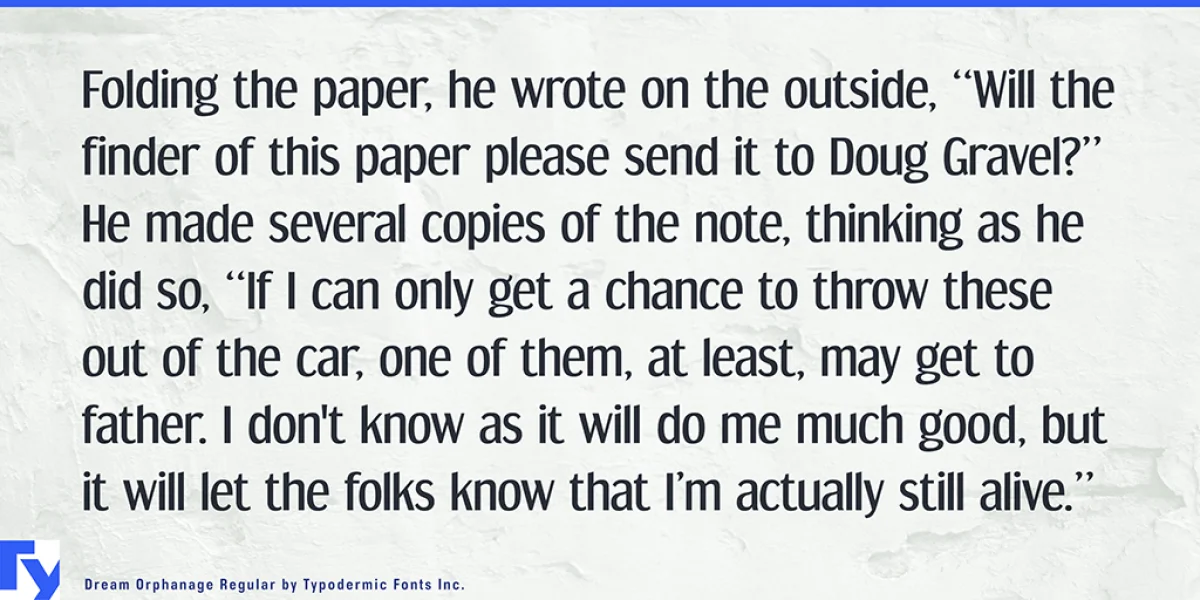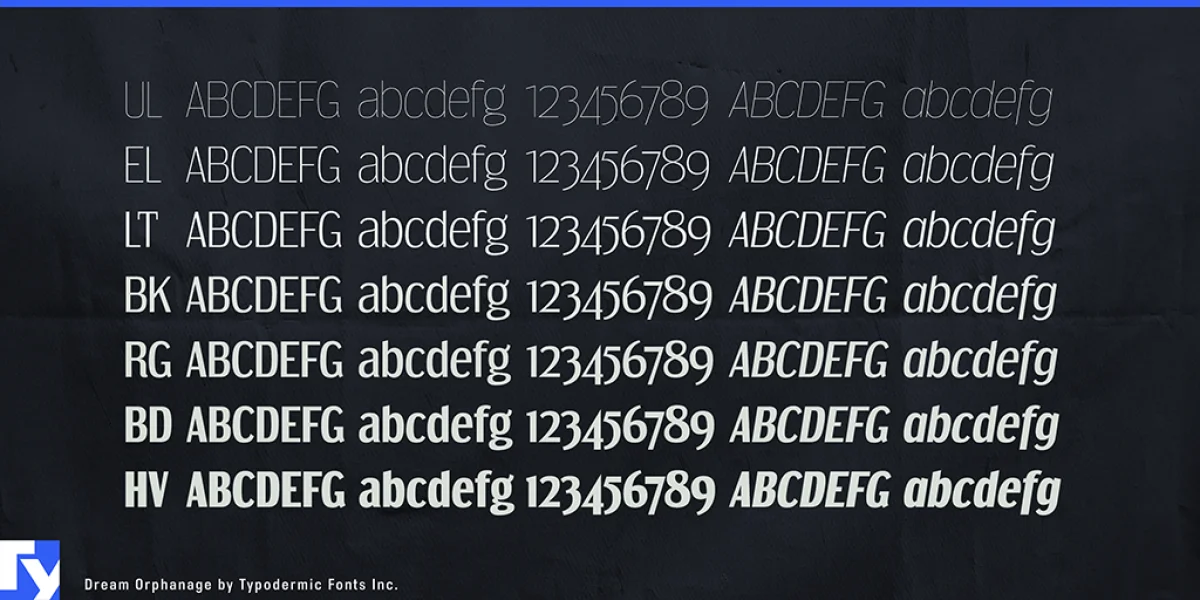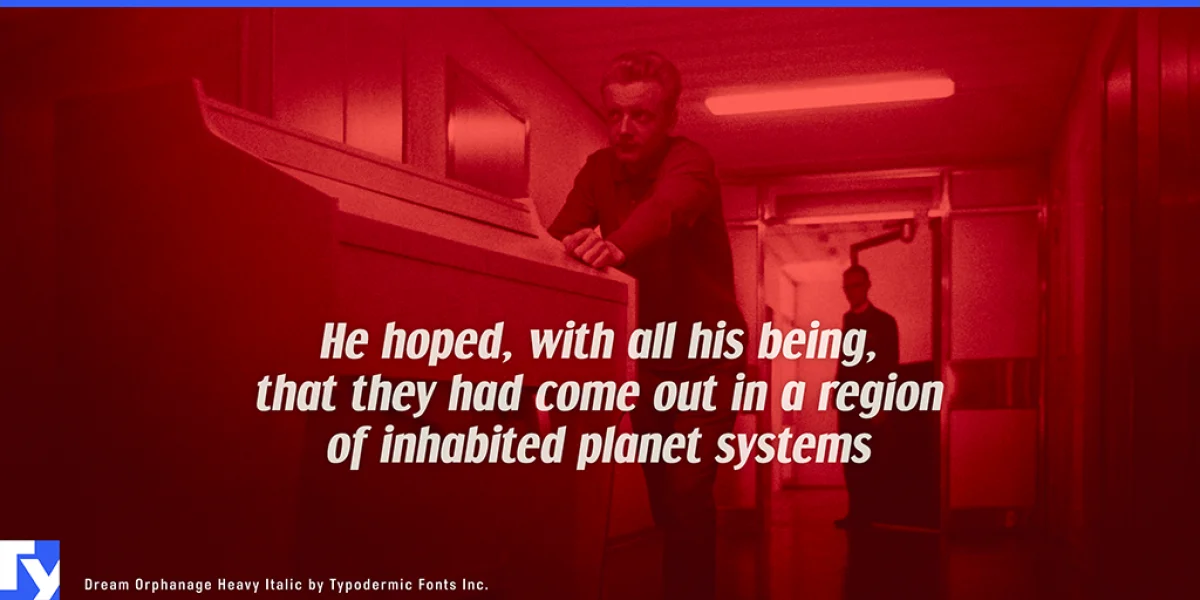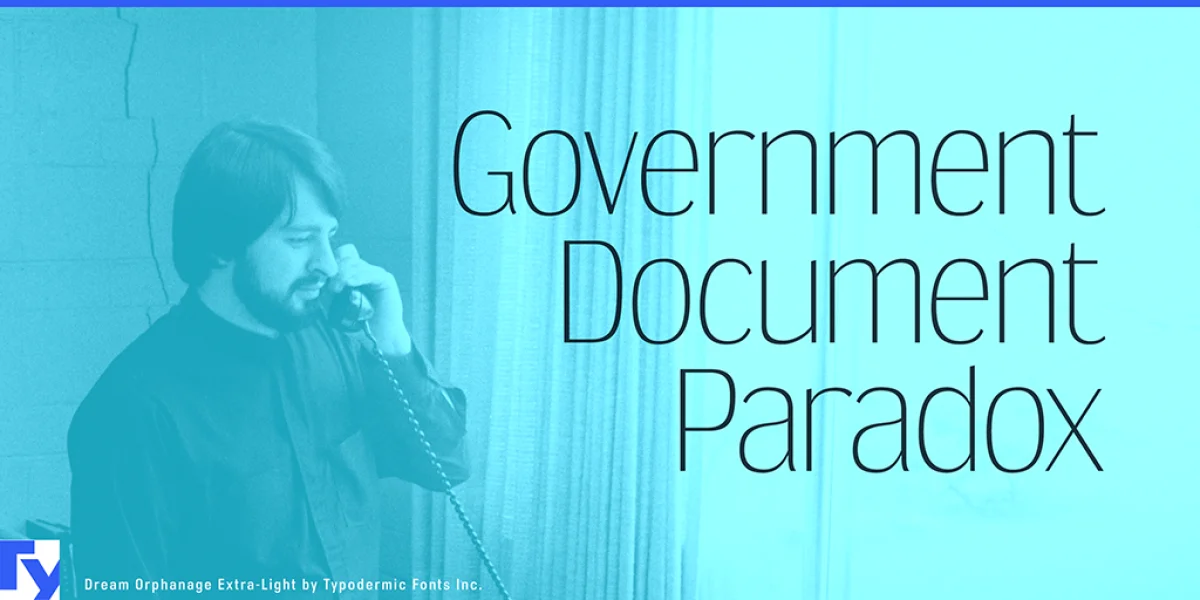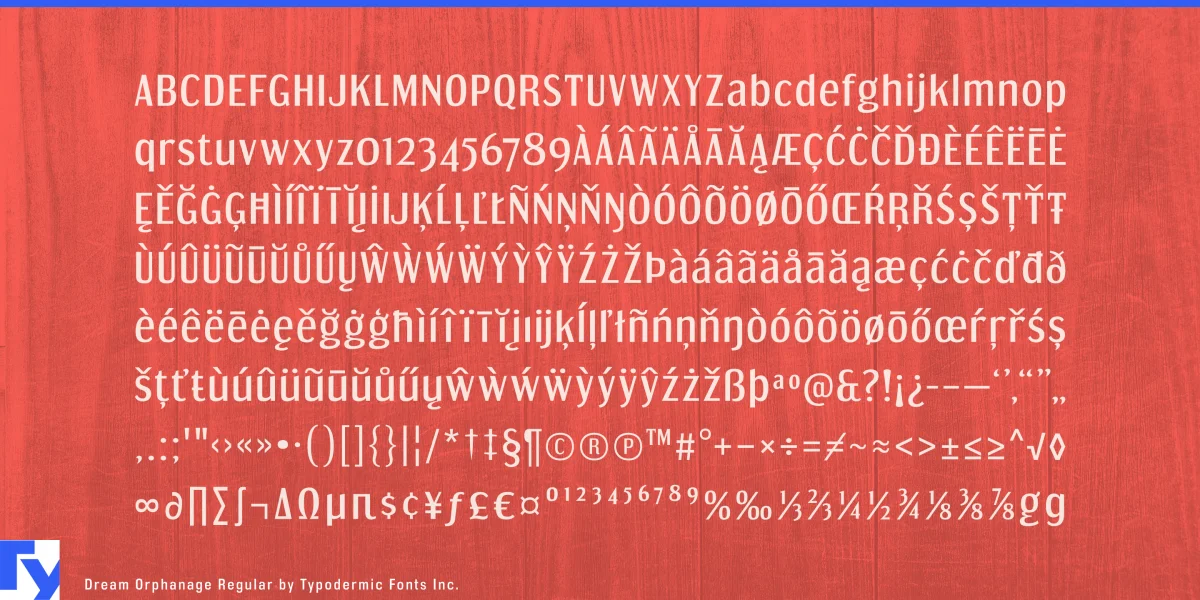
Dream Orphanage is a tiny sans-serif typeface with a warm demeanor. This is a high-quality reconstruction of the 1990s typeface called, Dream Orphans. An alternative style of “g” is available in OpenType-capable apps. Dream Orphanage is available in seven weights and italics. Most Latin-based European writing systems are supported, including the following languages. Afaan Oromo, Afar, Afrikaans, Albanian, Alsatian, Aromanian, Aymara, Bashkir (Latin), Basque, Belarusian (Latin), Bemba, Bikol, Bosnian, Breton, Cape Verdean, Creole, Catalan, Cebuano, Chamorro, Chavacano, Chichewa, Crimean Tatar (Latin), Croatian, Czech, Danish, Dawan, Dholuo, Dutch, English, Estonian, Faroese, Fijian, Filipino, Finnish, French, Frisian, Friulian, Gagauz (Latin), Galician, Ganda, Genoese, German, Greenlandic, Guadeloupean Creole, Haitian Creole, Hawaiian, Hiligaynon, Hungarian, Icelandic, Ilocano, Indonesian, Irish, Italian, Jamaican, Kaqchikel, Karakalpak (Latin), Kashubian, Kikongo, Kinyarwanda, Kirundi, Kurdish (Latin), Latvian, Lithuanian, Lombard, Low Saxon, Luxembourgish, Maasai, Makhuwa, Malay, Maltese, Māori, Moldovan, Montenegrin, Ndebele, Neapolitan, Norwegian, Novial, Occitan, Ossetian (Latin), Papiamento, Piedmontese, Polish, Portuguese, Quechua, Rarotongan, Romanian, Romansh, Sami, Sango, Saramaccan, Sardinian, Scottish Gaelic, Serbian (Latin), Shona, Sicilian, Silesian, Slovak, Slovenian, Somali, Sorbian, Sotho, Spanish, Swahili, Swazi, Swedish, Tagalog, Tahitian, Tetum, Tongan, Tshiluba, Tsonga, Tswana, Tumbuka, Turkish, Turkmen (Latin), Tuvaluan, Uzbek (Latin), Venetian, Vepsian, Võro, Walloon, Waray-Waray, Wayuu, Welsh, Wolof, Xhosa, Yapese, Zapotec Zulu and Zuni.